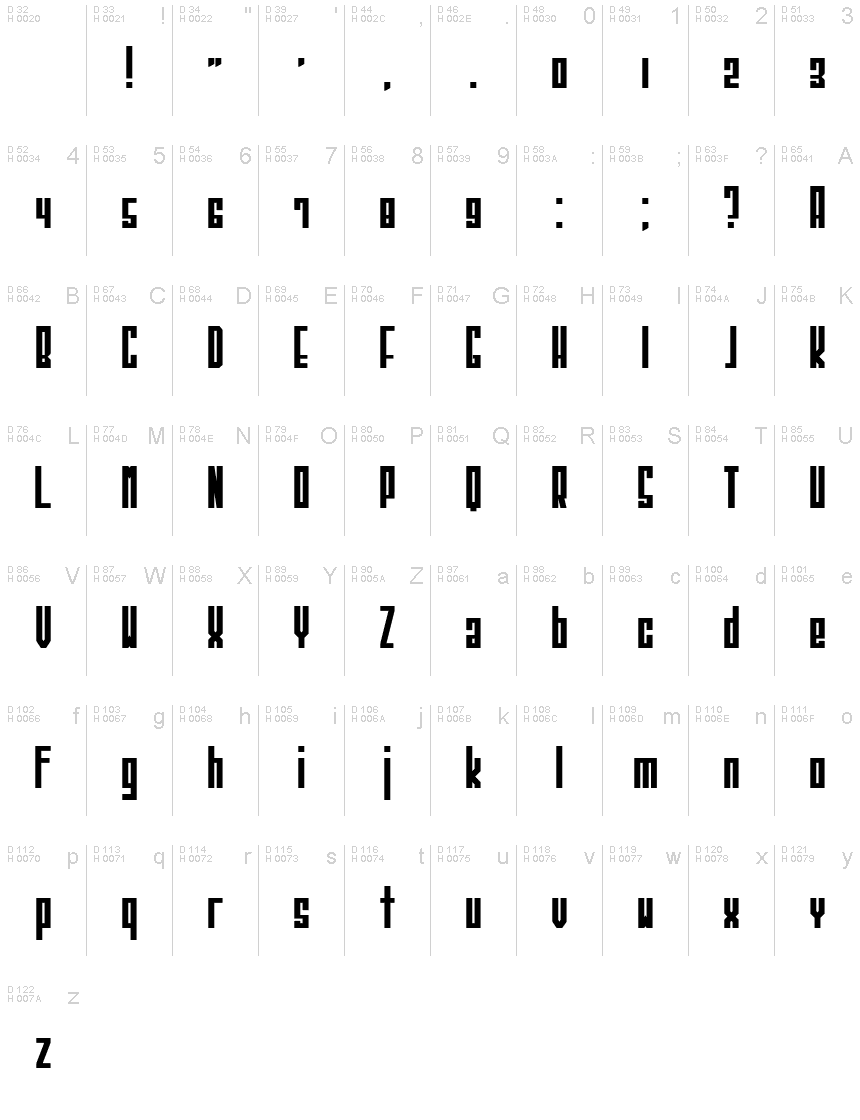
Cacao Regular
Cacao, the extra-condensed display font designed by Vladimir Nikolic, is the perfect choice for any project aiming to make a bold statement. Its sleek and futuristic techno style will add a touch of modern sophistication to any design. Whether you're creating a tech-inspired website or designing eye-catching packaging for your product, Cacao's narrow width will help save space while still making an impact. Use it for anything from logos and headlines to posters and flyers. With its unique look and feel, Cacao is sure to leave a lasting impression on your audience.